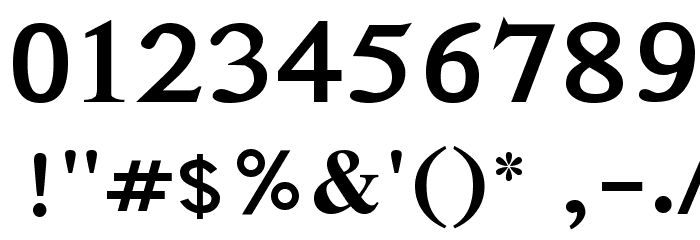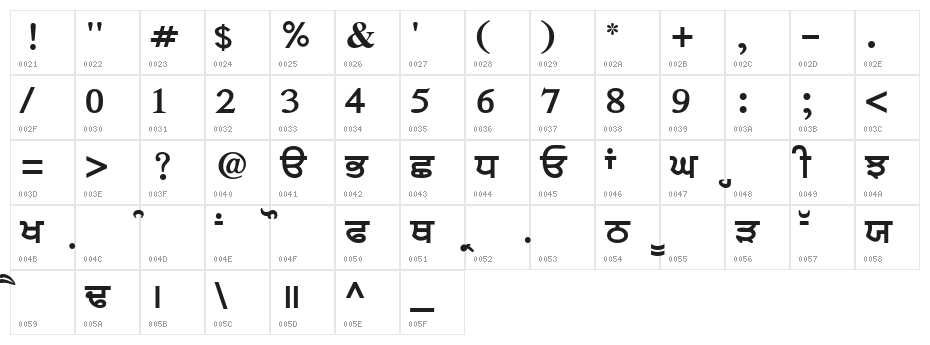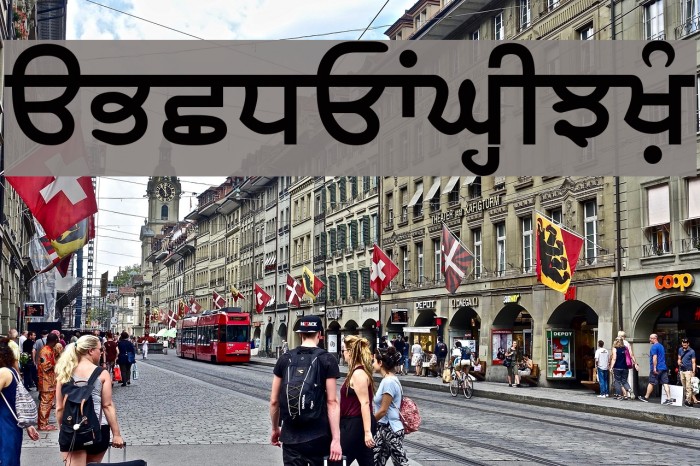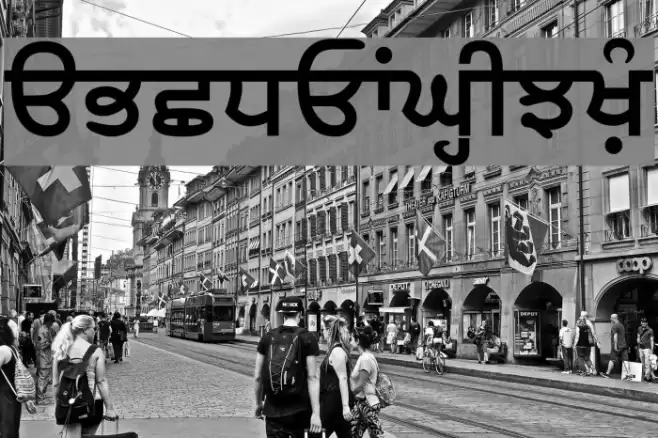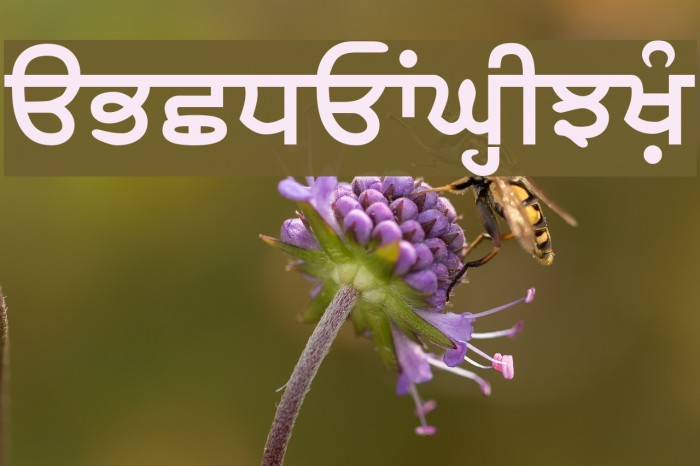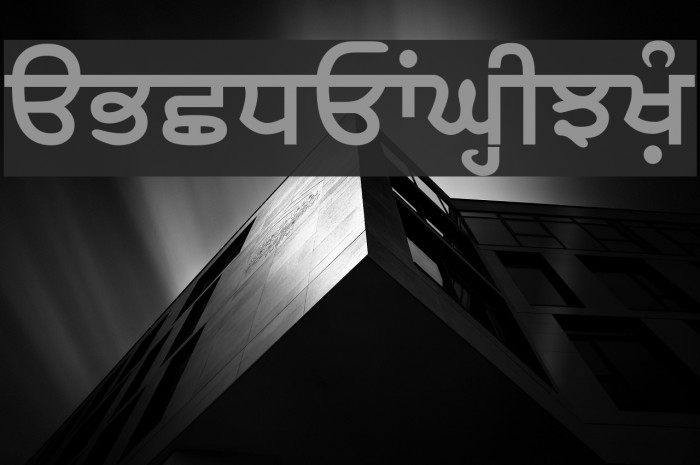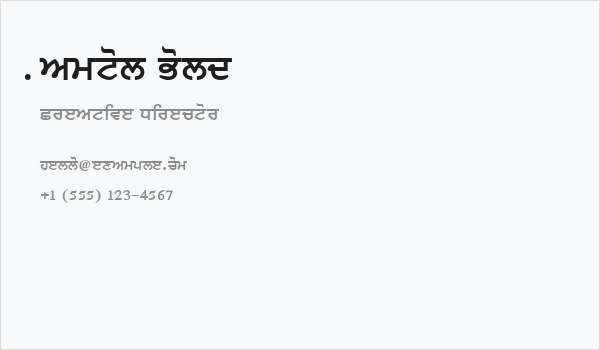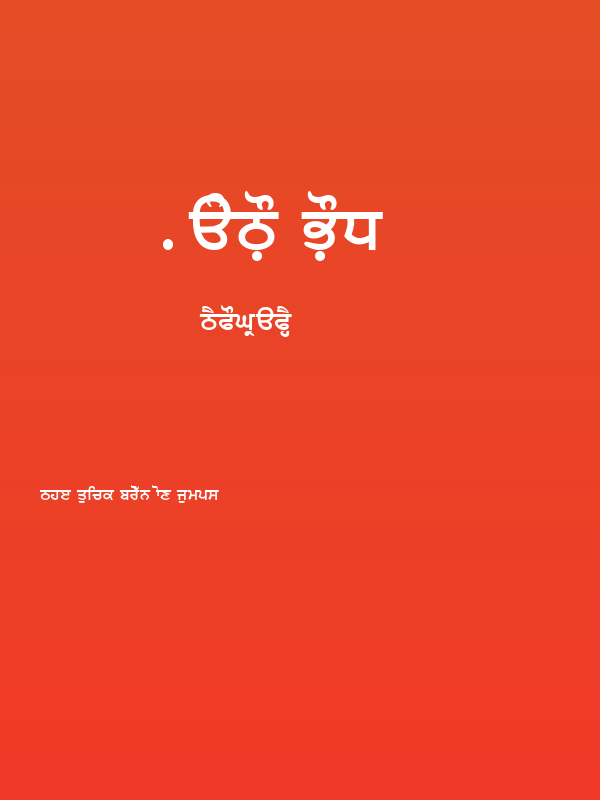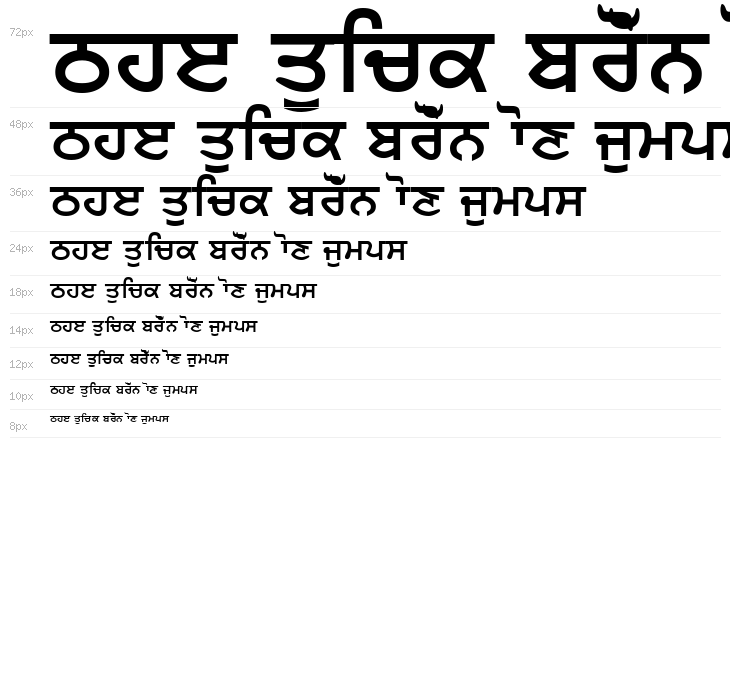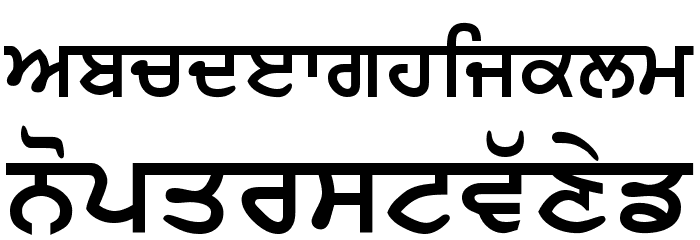
Samtol Bold Font
Samtol Bold Description
This font features bold, rounded characters with a strong presence, suitable for impactful designs. The strokes are thick and consistent, providing a uniform appearance across all characters. The numerals and special characters maintain the bold style, ensuring readability and emphasis. The overall design is modern and clean, making it ideal for various applications where clarity and boldness are required. The font's structure supports a wide range of uses, from digital to print media, ensuring versatility in design projects.